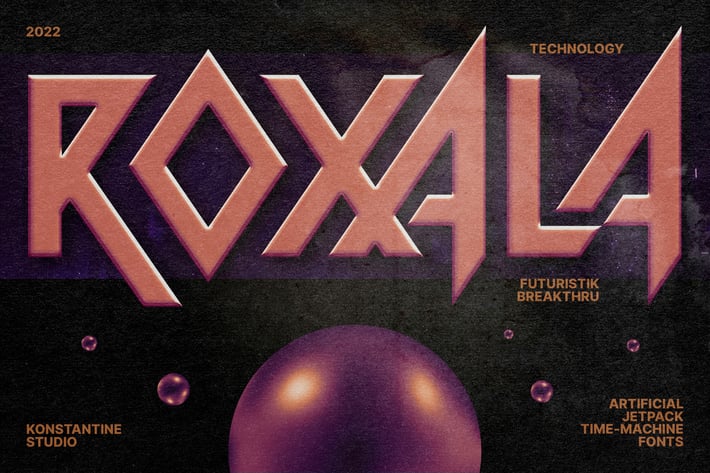
Roxala - Futuristic Breakthrough Fonts
Get ready to discover the future with Roxala. A futuristic breakthrough visual in the shape of fonts. We take it to the extreme point of each letter to have such a remarkable point in every word.
Perfectly fit for your music project, video, visual artwork, logo, branding, event poster, fashion, album artwork, anything.